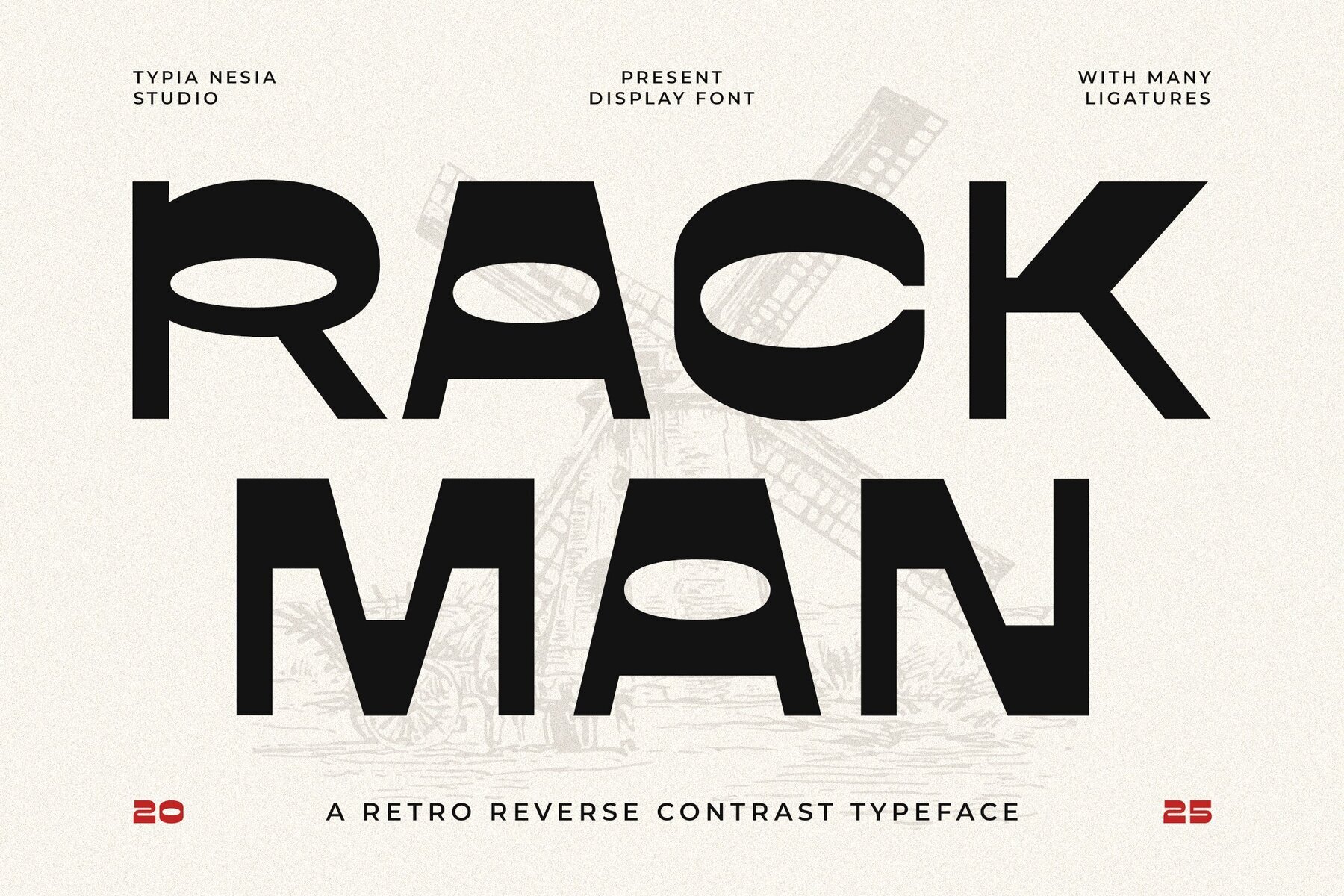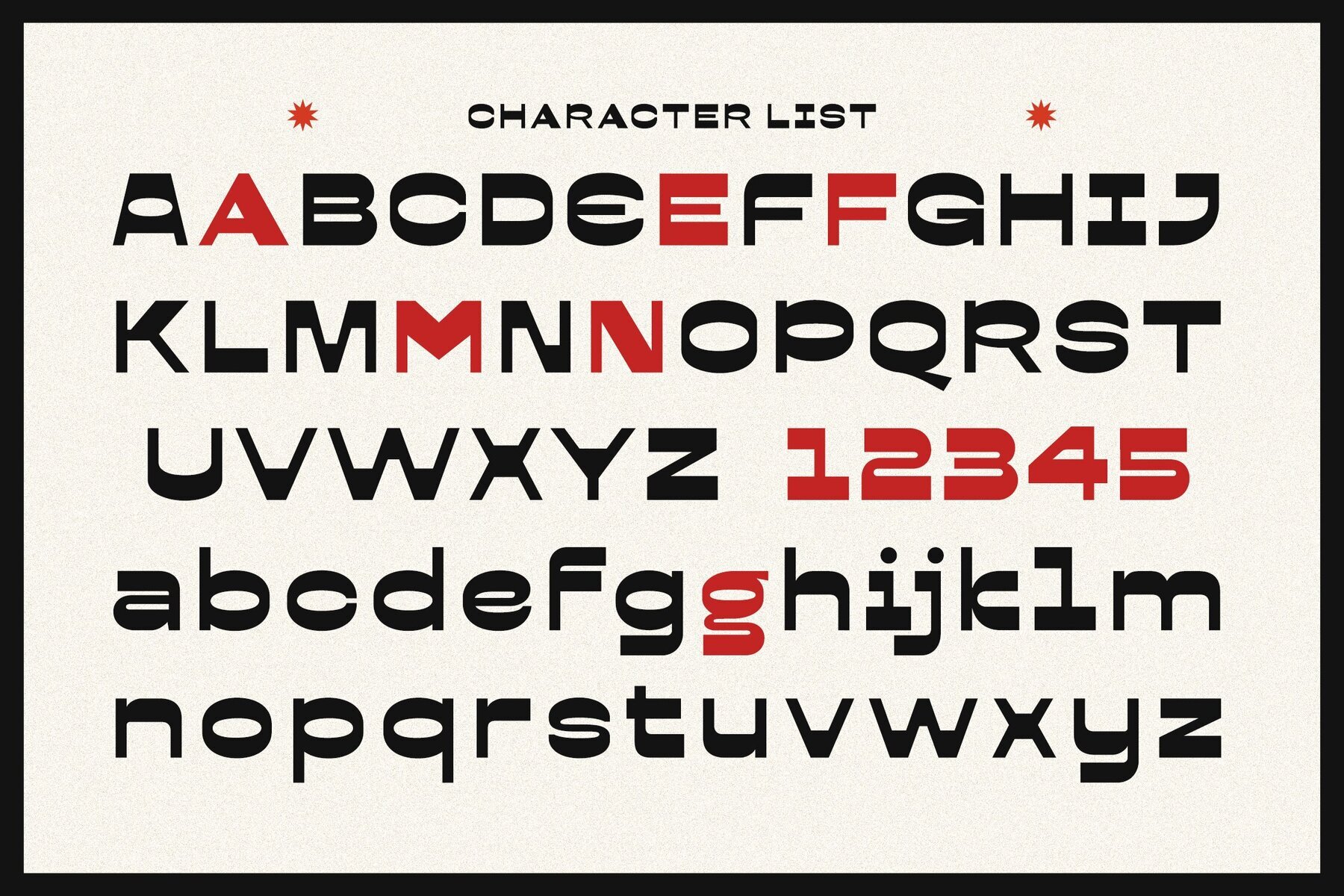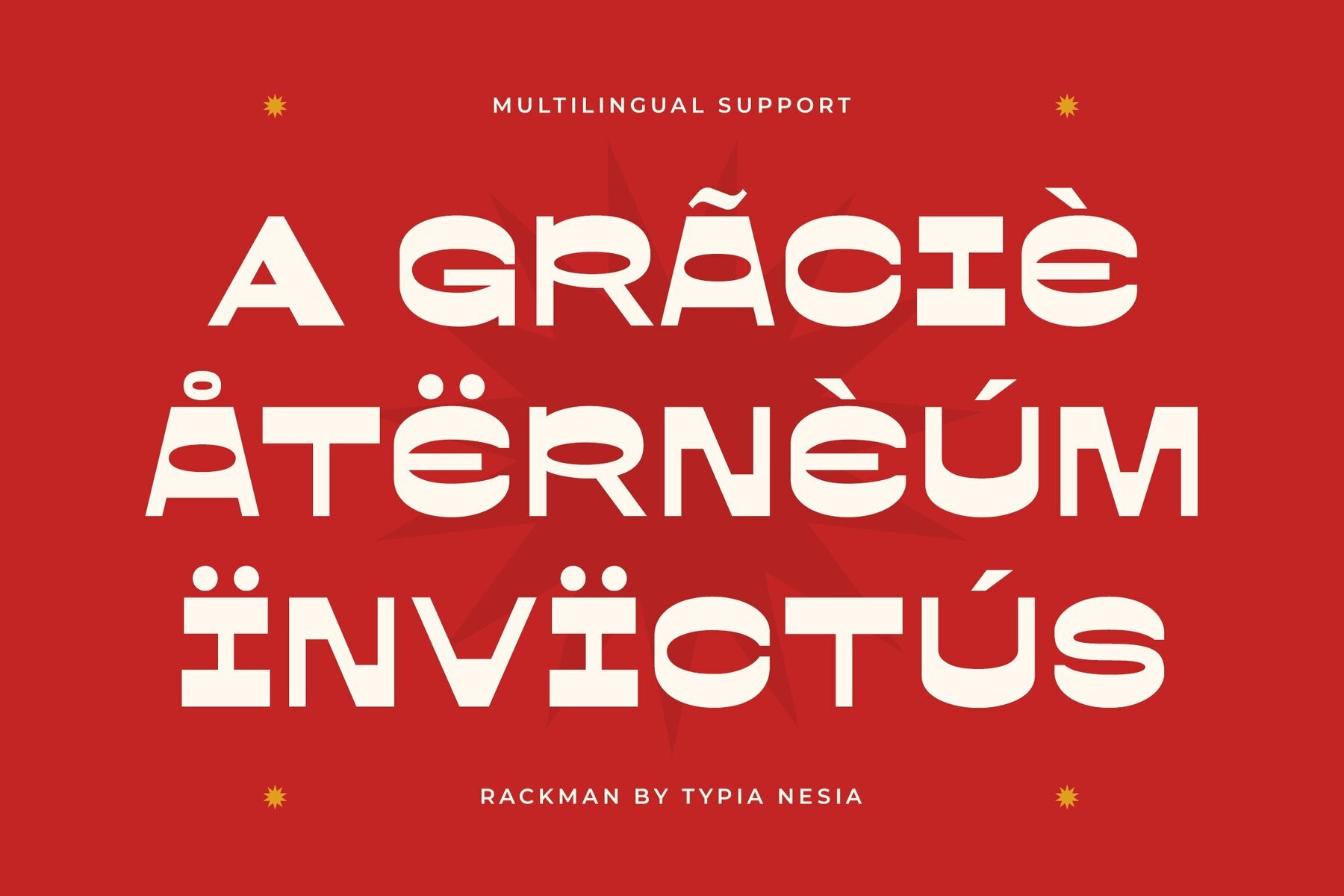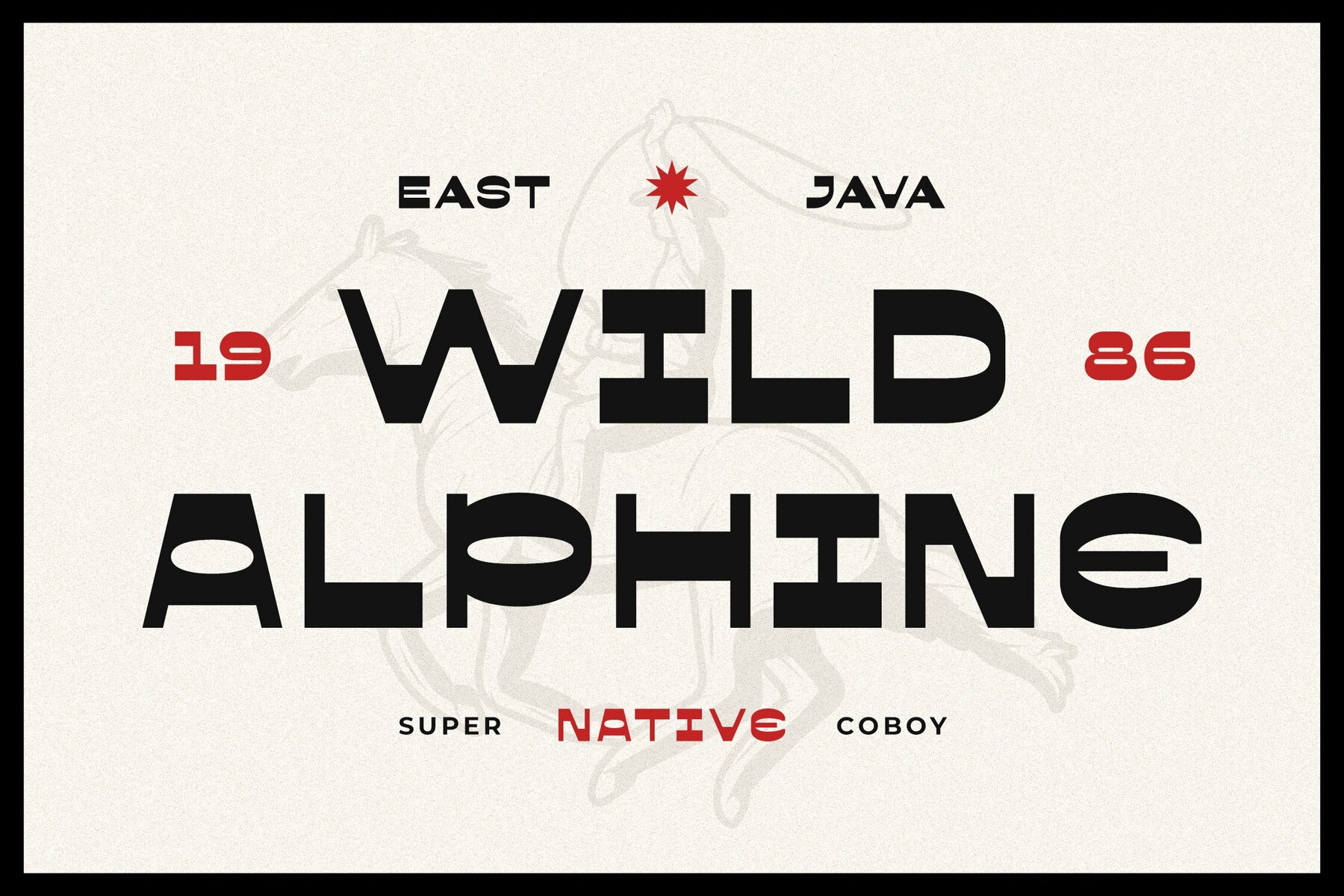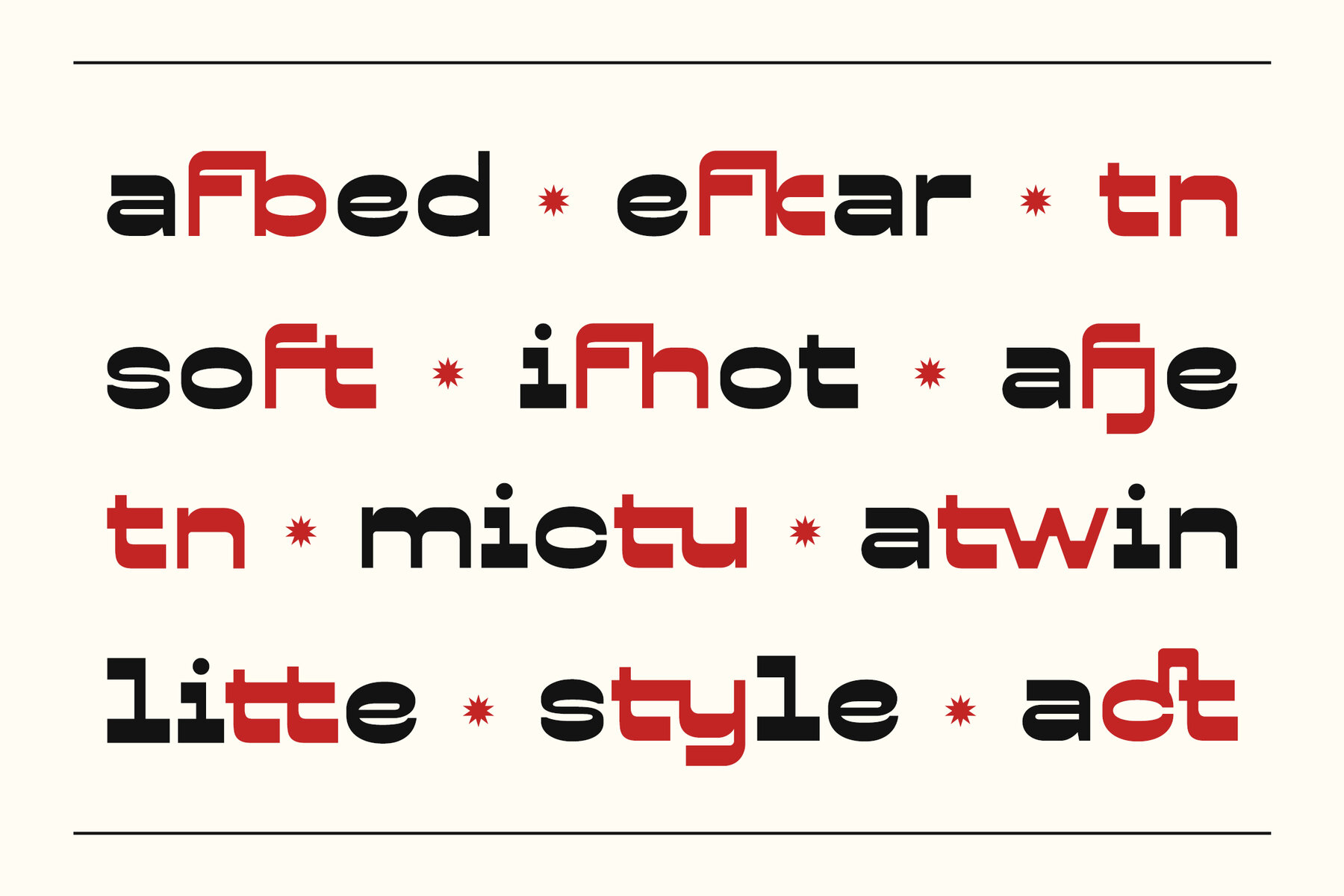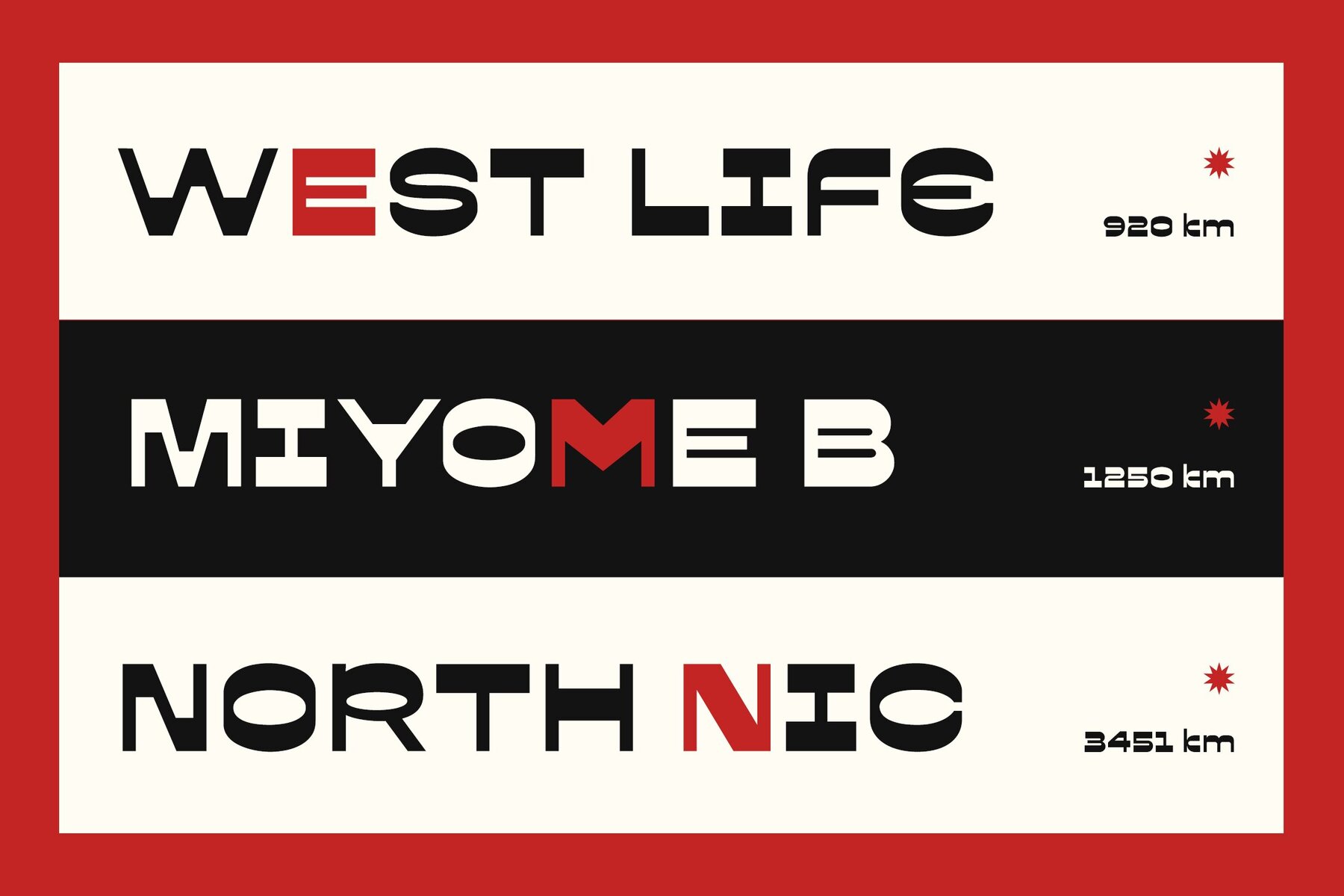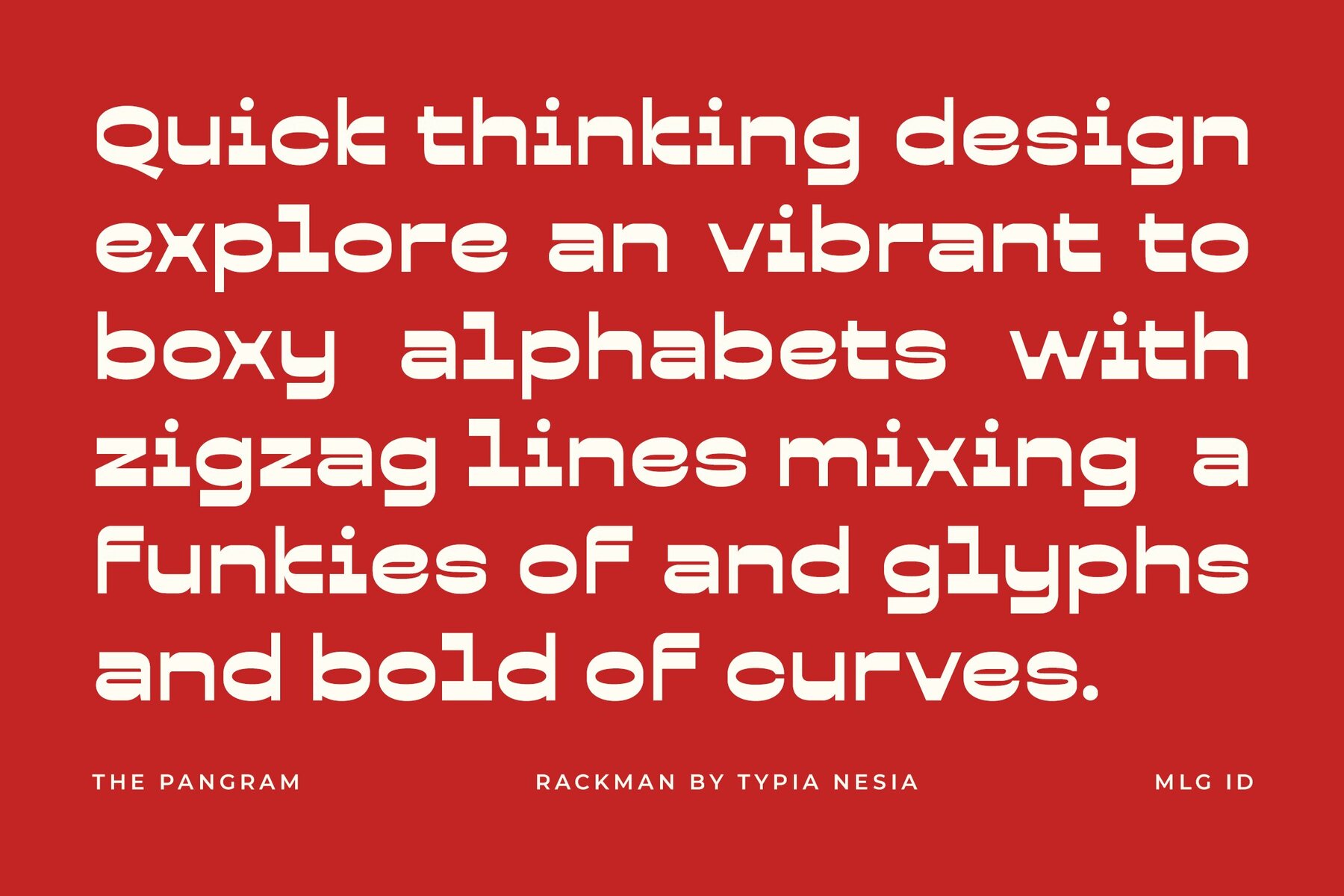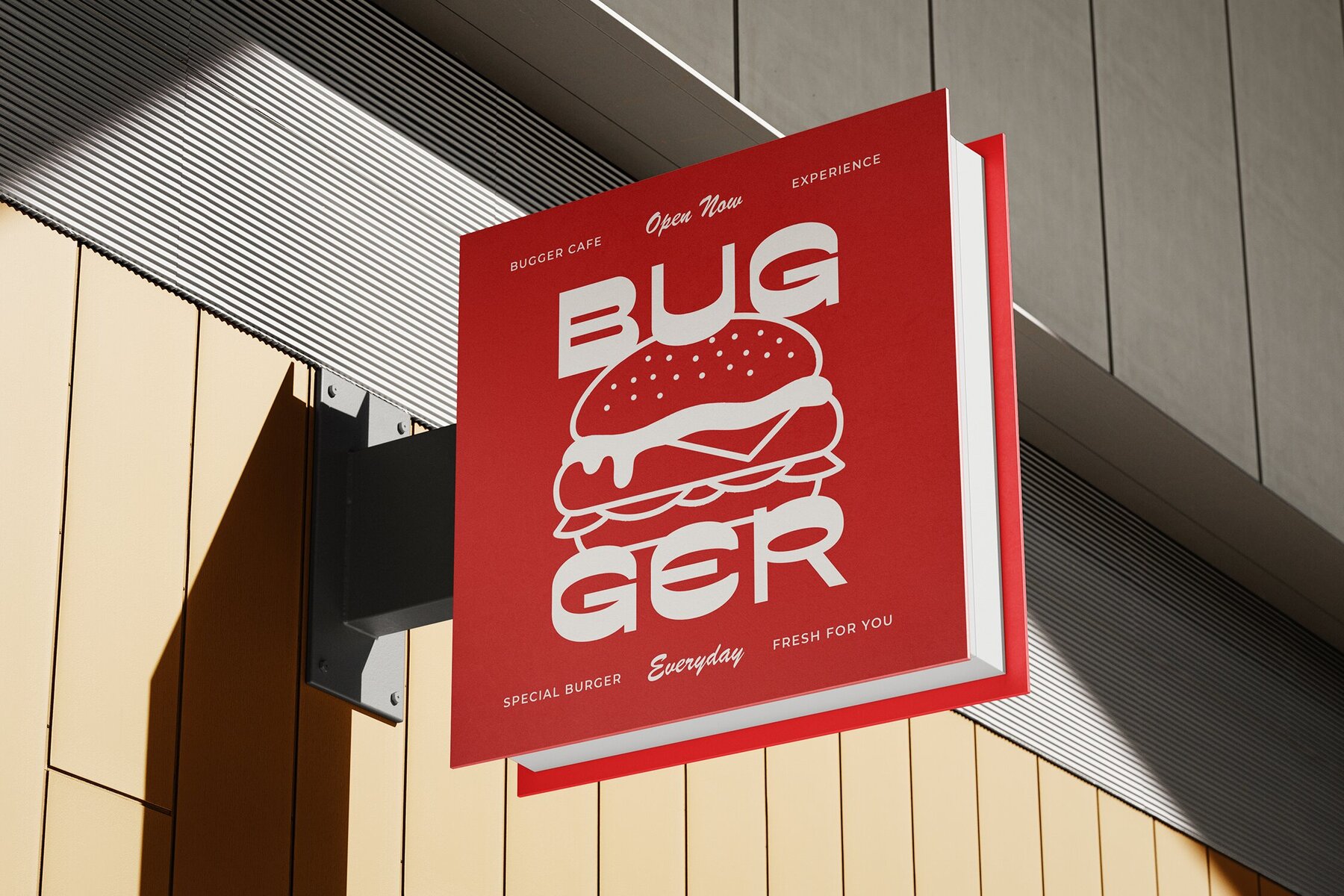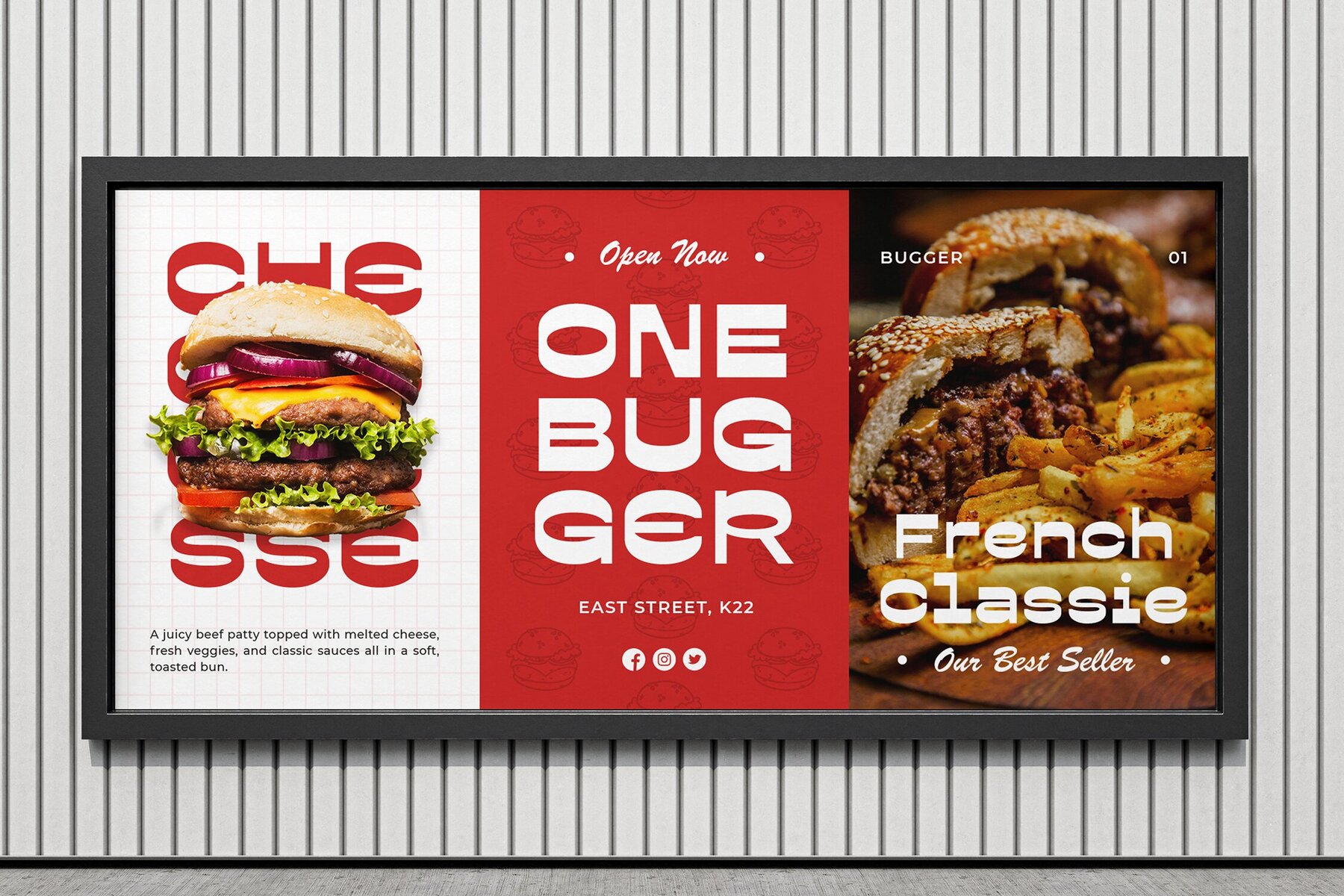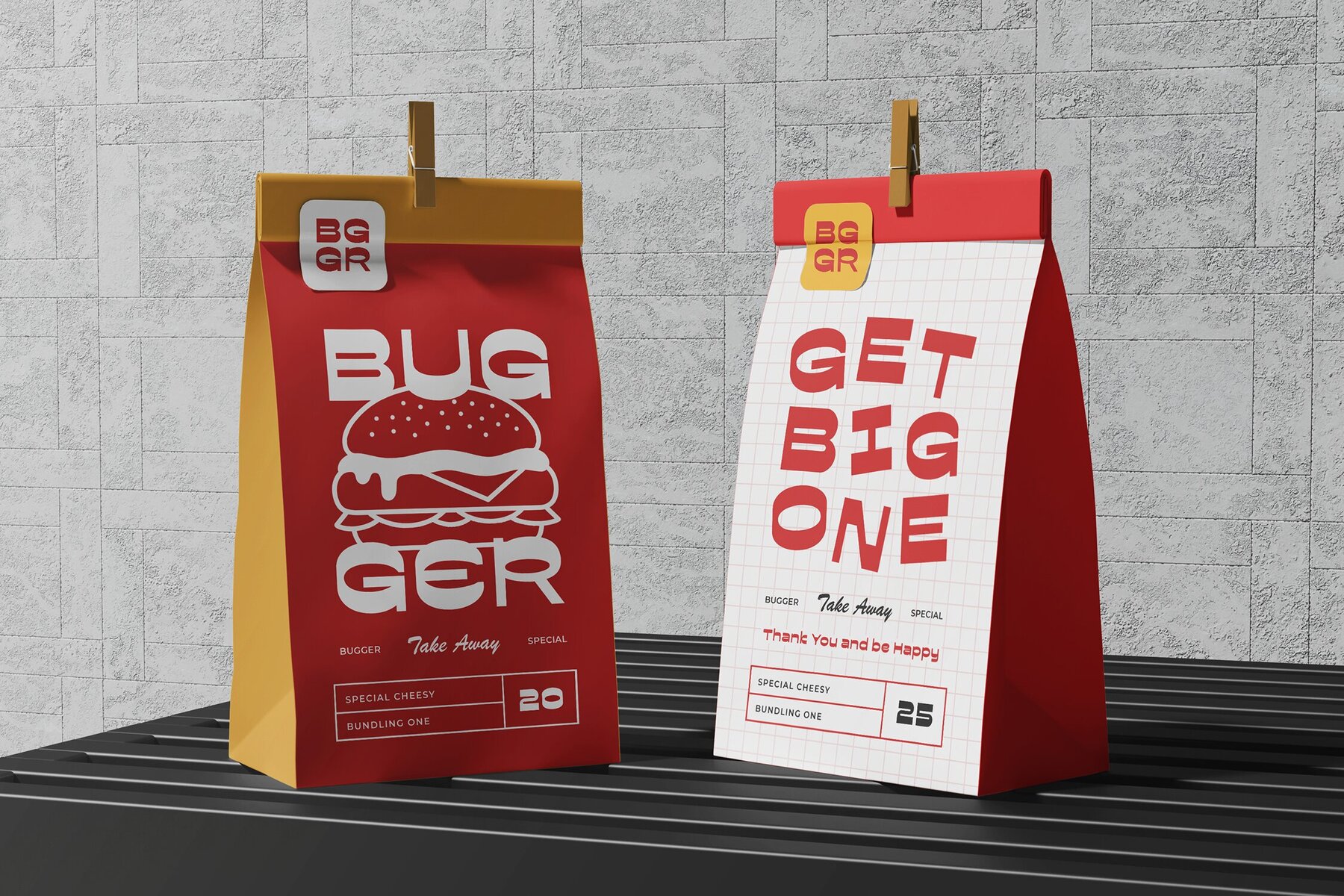
Rackman Font
Rackman is an expanded sans-serif font that captures attention with its bold, vintage-inspired design. It uniquely emphasizes horizontal strokes, creating a distinct aesthetic that is both retro and modern. This font is ideal for headlines, expressive branding, dynamic advertising, and more.Rackman: Retro Reverse Contrast Sans with Vintage Appeal
Embrace the nostalgic essence of Rackman for logos, packaging, or retro-themed posters.